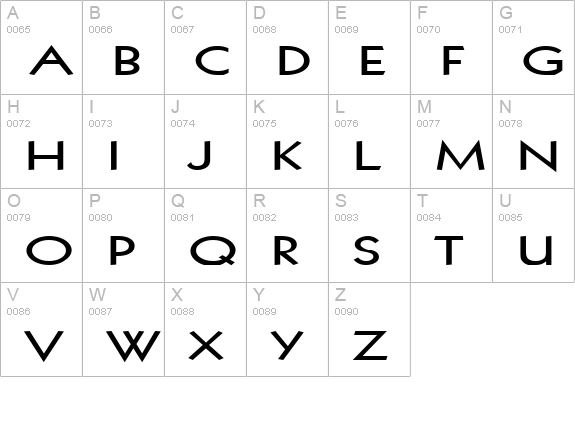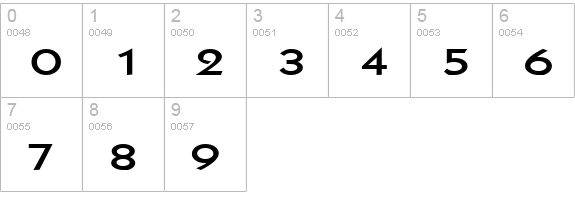
Geo 112 Extended Bold is a strong, high-contrast, extended-width variant in the Geo typeface family \xE2\x80\x94 well suited to headlines, attention-grabbing titles, and strong calls-to-action.
Geo 112 Extended Bold is a modern and sleek font that exudes sophistication and professionalism. Its bold and striking design makes it perfect for creating eye-catching headlines, titles, and branding materials. This font is ideal for projects that require a strong and impactful visual presence. What makes Geo 112 Extended Bold even more appealing is that it is available for free download at FontsMarket.com. This means that you can easily access this high-quality font without any cost, making it a fantastic choice for designers, artists, and creatives looking to elevate their work with a premium typeface. With its clean lines, sharp edges, and contemporary aesthetic, Geo 112 Extended Bold is sure to make a statement in any design project. Download this versatile font today and add a touch of modern elegance to your creations.